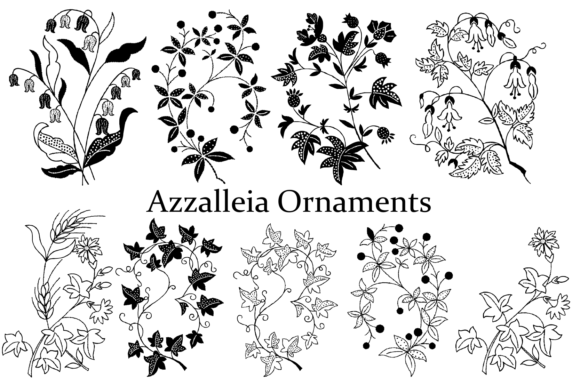
Discover the Magic of Handcrafted Typography
As designers, we’ve all been there – staring at a blank canvas, waiting for that spark of creativity to strike. It’s the moment when the ordinary becomes extraordinary, and the world of typography comes alive. For me, it was a dusty old cross-stitch book that ignited the flame of inspiration, leading me to create the Azalleia Ornaments Font – a truly one-of-a-kind, flourished ornaments typeface.
With its intricate, hand-crafted design, Azalleia Ornaments Font is more than just a font – it’s a journey through the world of traditional crafts and the art of manual creation. This unique typeface is designed to add a touch of whimsy and elegance to any project, from digital designs to print materials. For designers, Azalleia Ornaments Font is a valuable addition to their toolkit, offering endless possibilities for creative expression.
Azalleia Ornaments Font Key Features
- Font Family: Azalleia Ornaments, a unique and elegant decorative font.
- Character Count: 350+ ornaments and decorations, making it ideal for various design projects.
- Resolution: Designed at 300 DPI, ensuring high-quality output in various print and digital applications.
- Unique Characteristics: Includes intricate designs, floral patterns, and festive elements, perfect for adding a touch of elegance and sophistication to any project.
- Size: Available in a single font size, suitable for use in a variety of contexts, from small ornaments to large decorations.
Azalleia Ornaments Font Review
Overall, I’m quite impressed with the Azalleia Ornaments Font. It’s perfect for adding a touch of whimsy and magic to your designs ✨. The font’s intricate details and ornaments make it ideal for projects that require a sense of wonder and enchantment.
- The Azalleia Ornaments Font is incredibly versatile and can be used for a wide range of projects, from invitations to digital art ✨.
- The font’s ornaments and details are well-designed and add a nice touch of sophistication to any design ✨.
- The font may not be suitable for all projects, as some of the ornaments and details may be too elaborate or distracting ⚠️.
- The font’s ornament-heavy design may make it difficult to read in certain situations, particularly in small text sizes ⚠️.
Overall, I’d recommend the Azalleia Ornaments Font for designers looking to add a touch of magic and whimsy to their projects. While it may have some limitations, its unique design and versatility make it a valuable addition to any design library ✨.
Use the Azalleia Ornaments font to add a touch of elegance and sophistication to your designs. Pair it with other decorative fonts for a unique look. Experiment with different font sizes and styles to achieve the desired effect.
The Azalleia Ornaments font is ideal for:
- Christmas and holiday cards
- Special occasion announcements